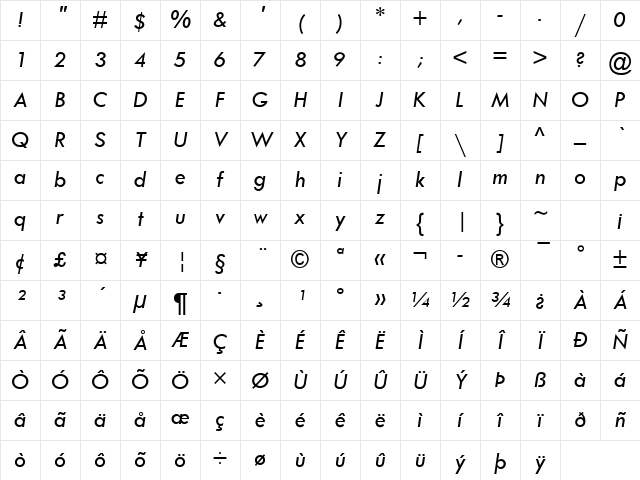
Tw Cen MT Italic
Foundry: Monotype Typography
Designer: Sol Hess
Design Context for Tw Cen MT
Tw Cen MT is a composed and adaptable typeface that performs quietly and consistently across a wide range of design contexts. The slanted form adds forward momentum and visual energy.
Pro Tip: Use Tw Cen MT for emphasis, pull quotes, and subheadings where its slanted energy can add rhythm to the layout.
Who designed the Tw Cen MT Italic font?